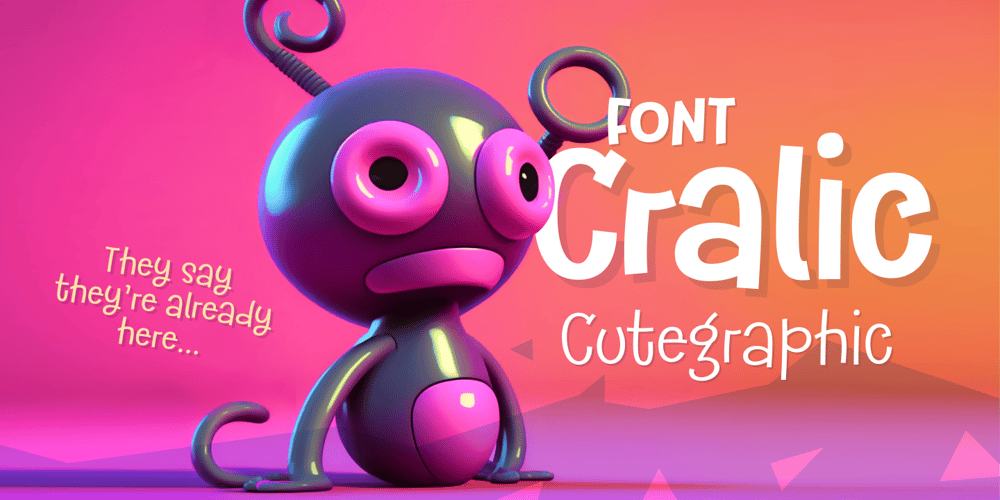
Cralic
Cralic font
Cralic Font Family was designed by Alexey Popov and published by Popskraft. Cralic contains 9 styles and family package options. The Cralic font is a great choice for playful and childish designs. It’s a cute and quirky display font that will bring a touch of fun to any project. This font is perfect for branding projects, logos, wedding designs, social media posts, advertisements, product packaging, labels, photography, invitations and any other project that needs a handwritten style.